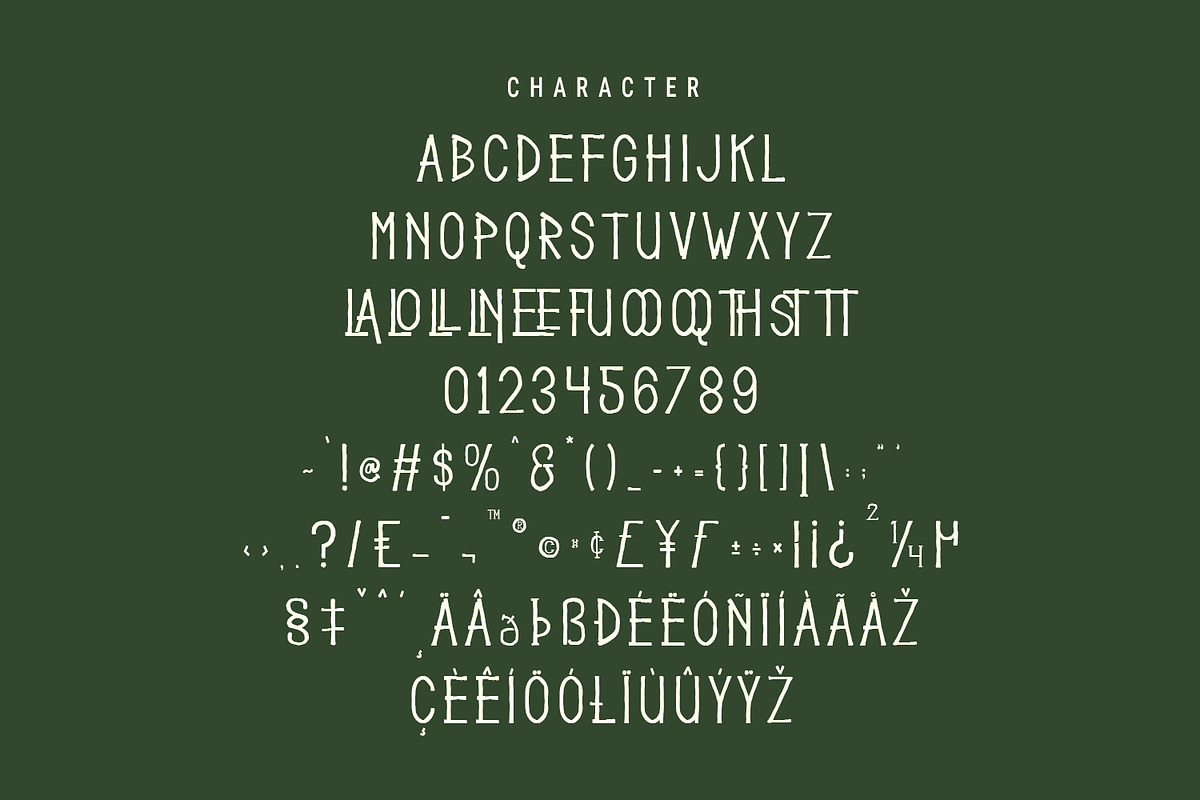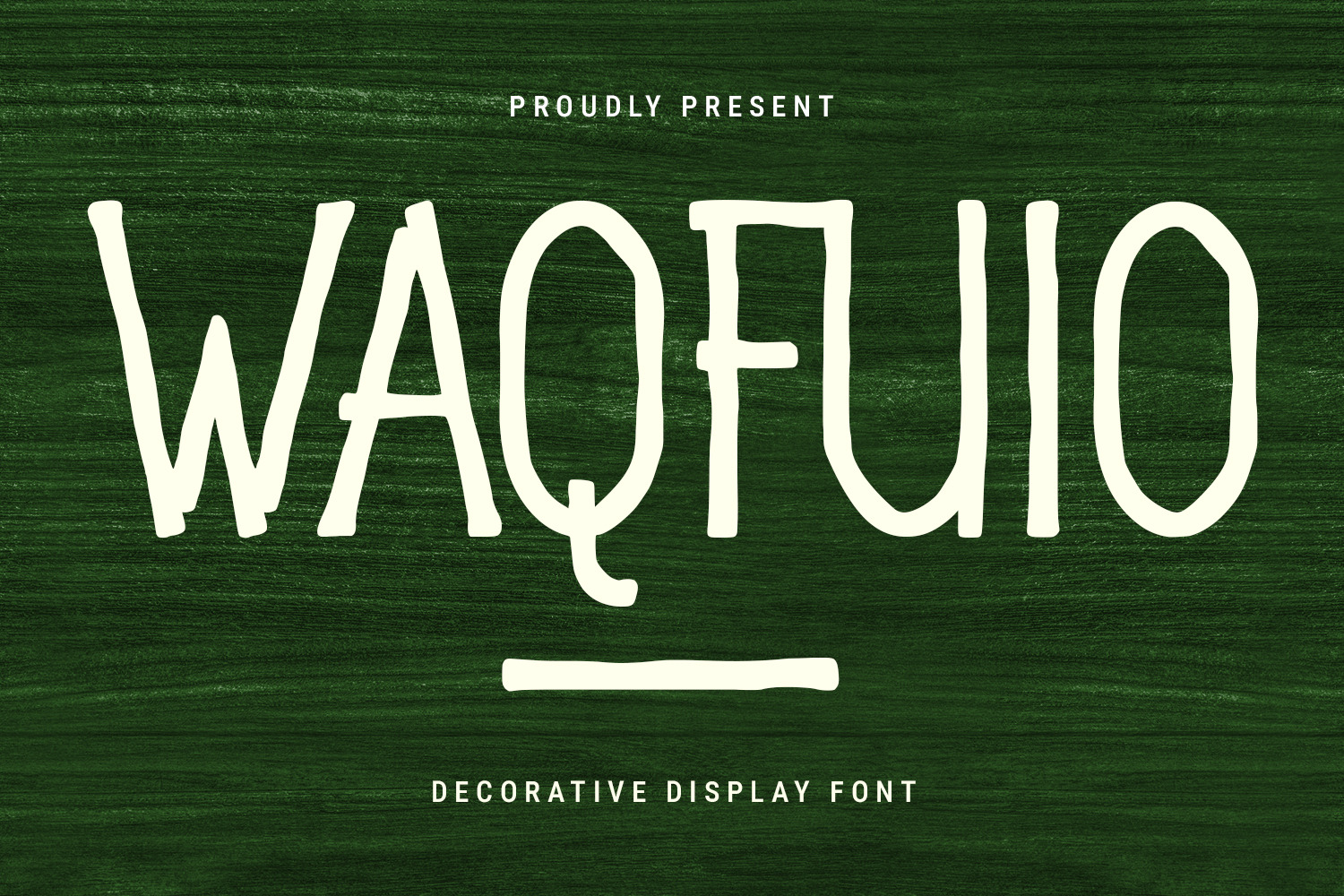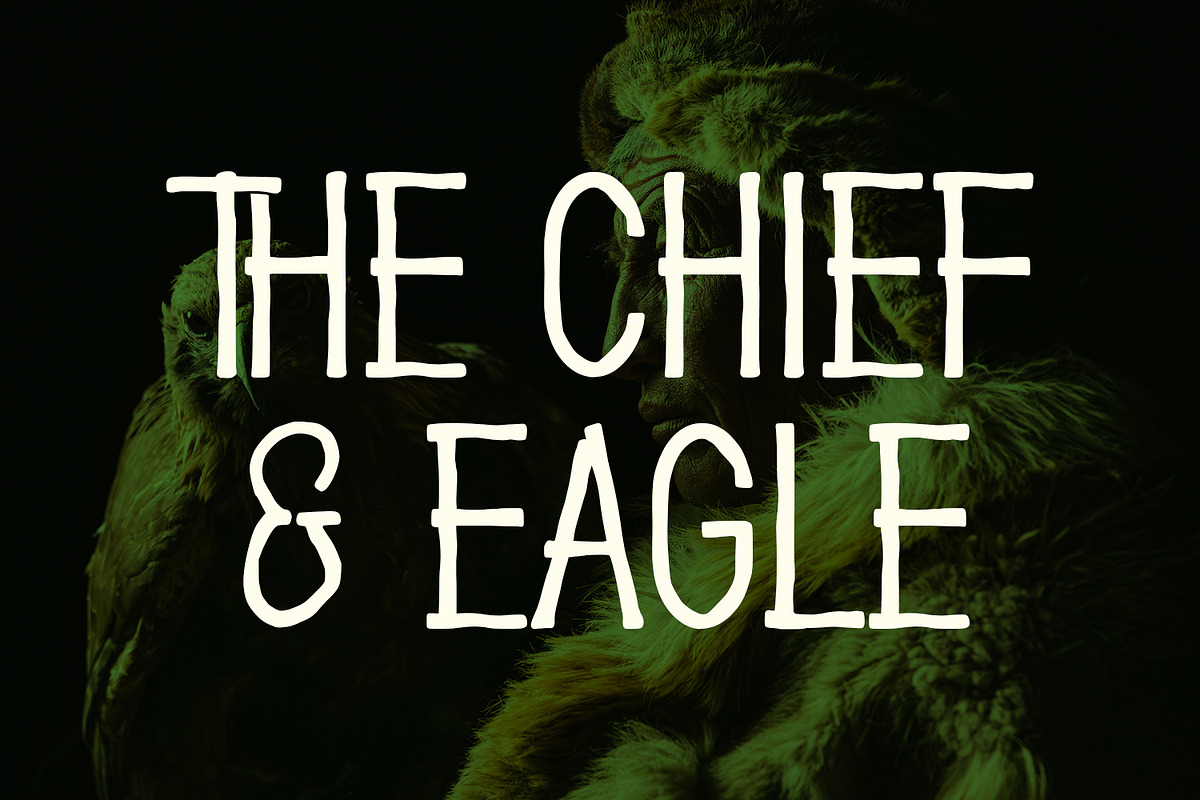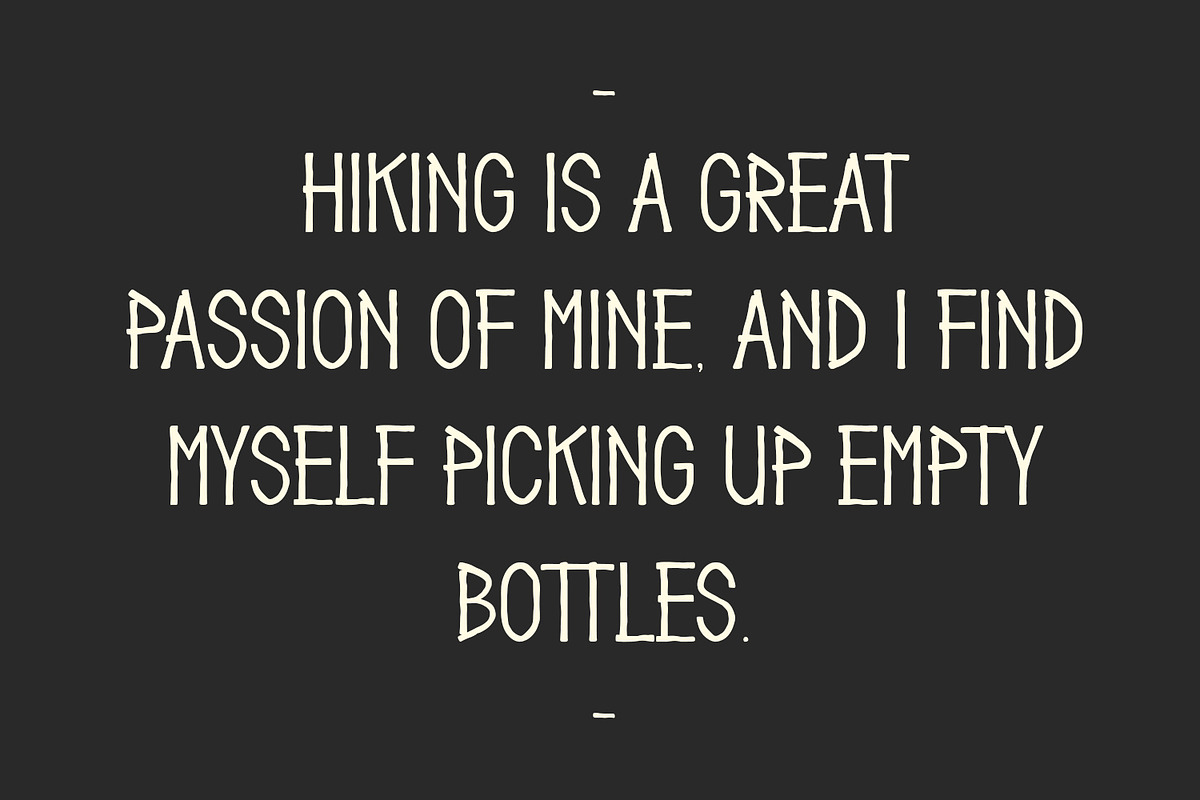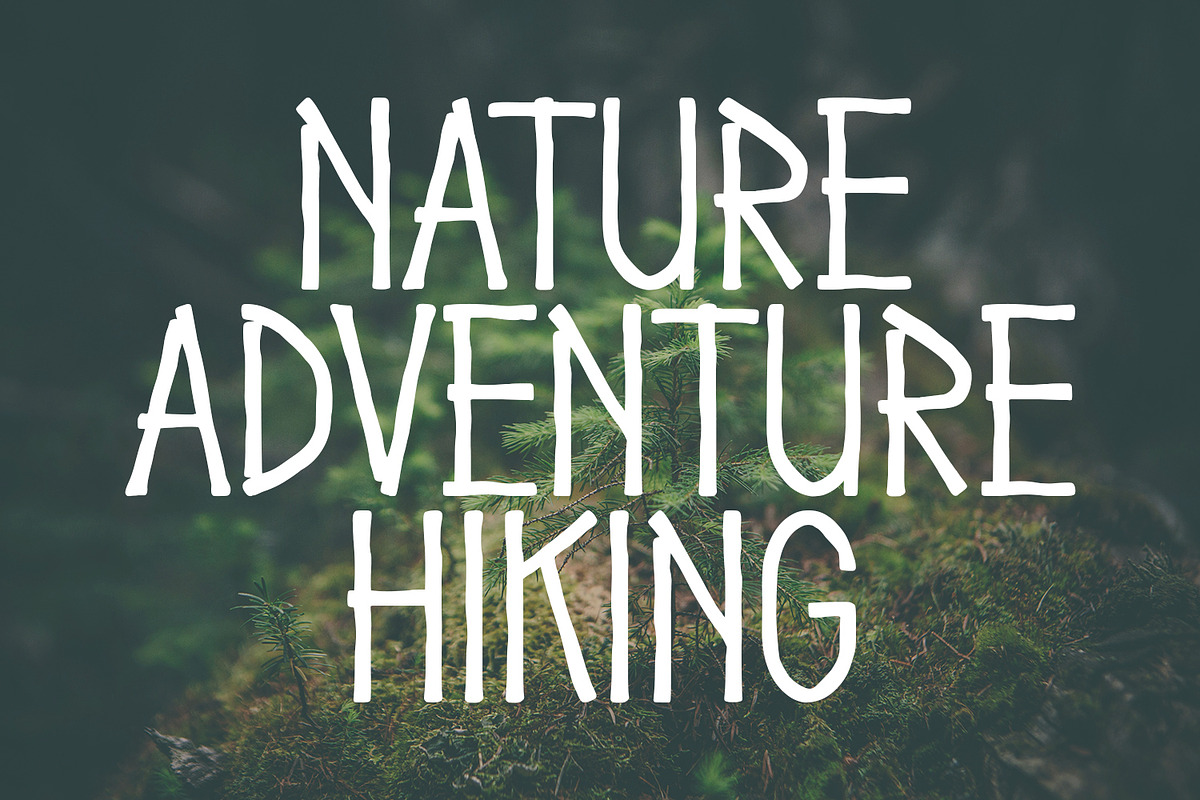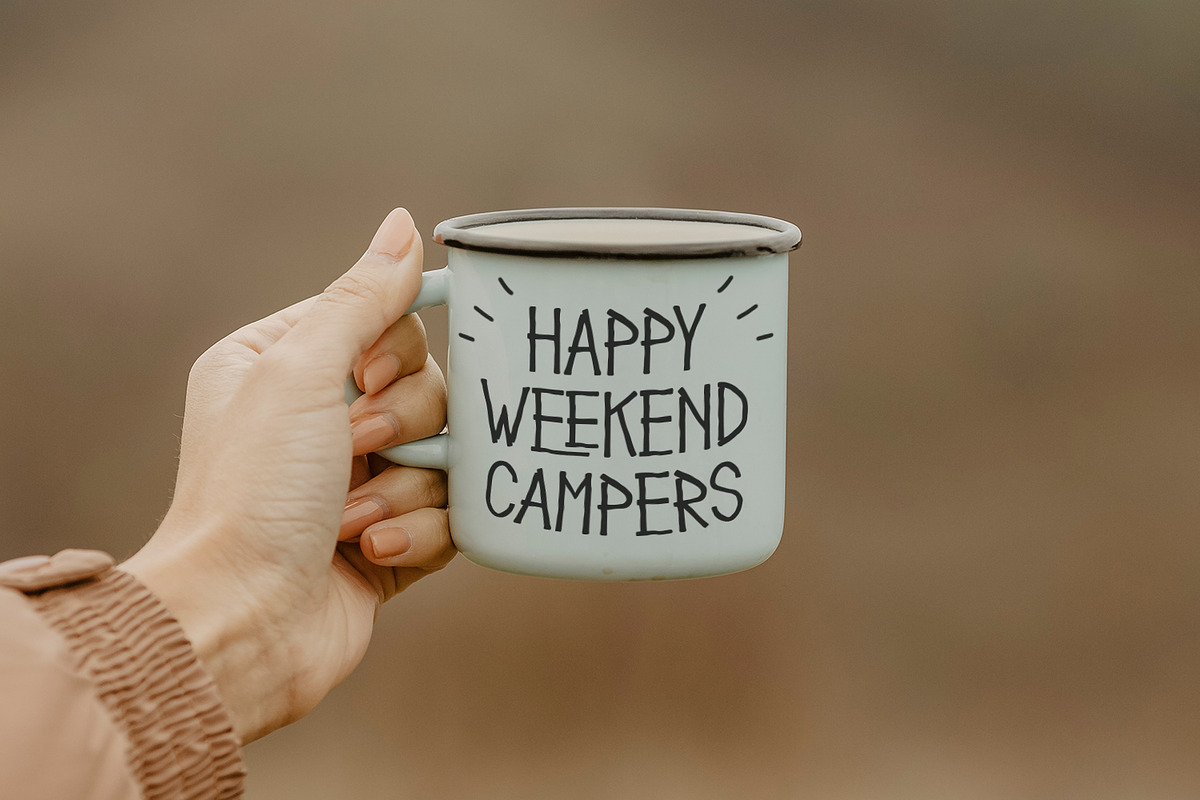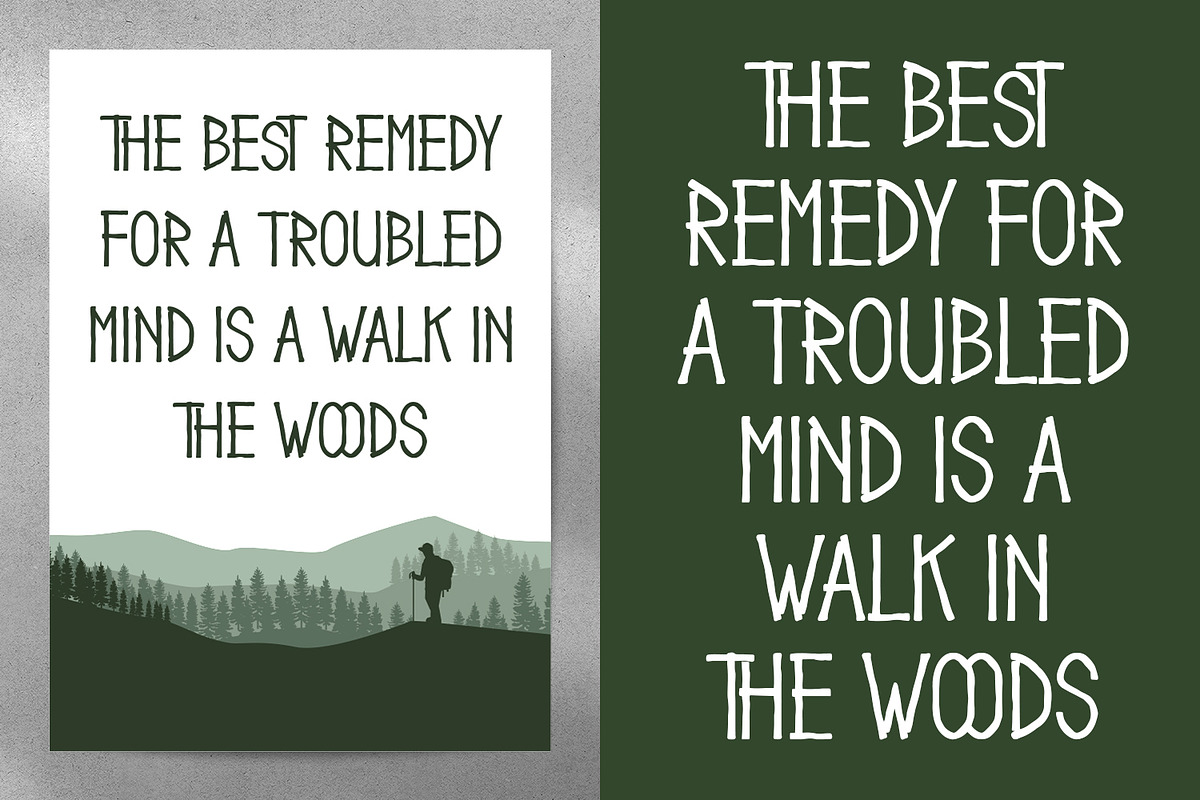
Waqfuio Decorative Display Font
Waqfuio is a decorative sans display font. With bold stroke, fun character with a bit of ligatures. To give you an extra creative work. Waqfuio font support multilingual more than 100+ language. This font is good for logo design, Social media, Movie Titles, Books Titles, a short text even a long text letter and good for your secondary text font with sans or serif. Make a stunning work with Waqfuio font.